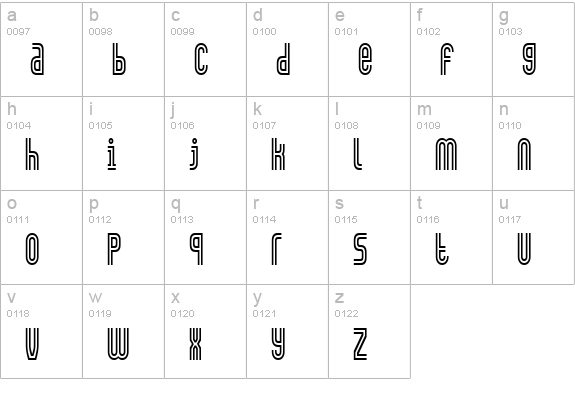
ArchCondensed Normal Font Details
ArchCondensed Normal is the standard, neutral variant in the ArchCondensed typeface family \xE2\x80\x94 well suited to general body text, paragraphs, and standard typographic work.
ArchCondensed Normal is a sleek and modern font that exudes sophistication and style. With its clean lines and condensed letterforms, this typeface is perfect for creating professional and elegant designs. The versatility of ArchCondensed Normal makes it suitable for a wide range of projects, from branding to editorial design. The best part about ArchCondensed Normal is that it is completely free to download at FontsMarket.com. This means that you can easily access this high-quality font without any cost, making it a valuable addition to your font library. Whether you are a designer looking for a new typeface to elevate your projects or a business owner in need of a polished font for your branding materials, ArchCondensed Normal is the perfect choice. Download it today and add a touch of sophistication to your designs.